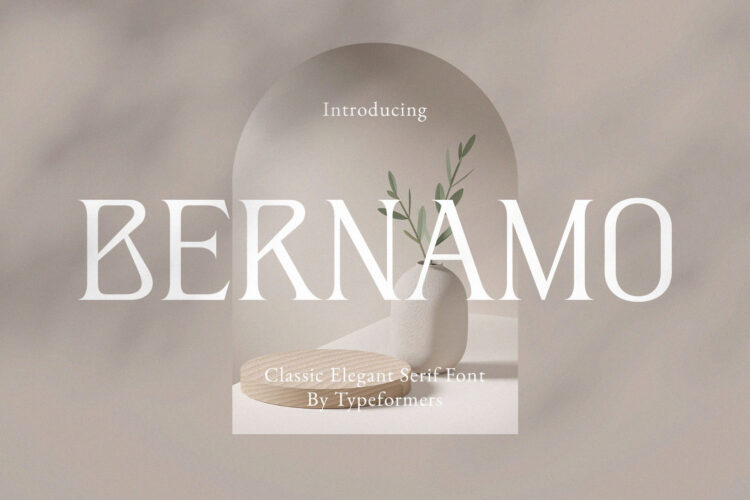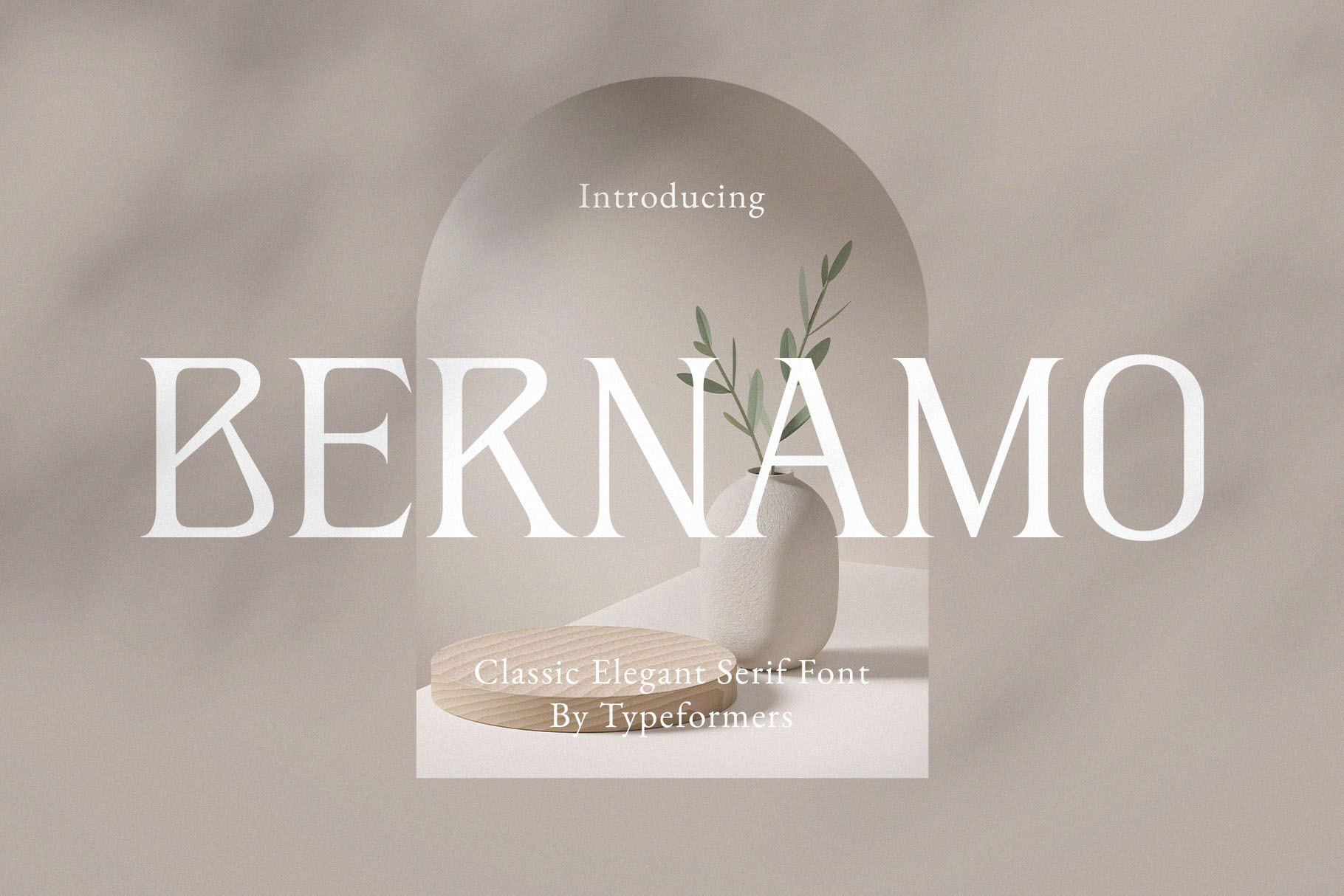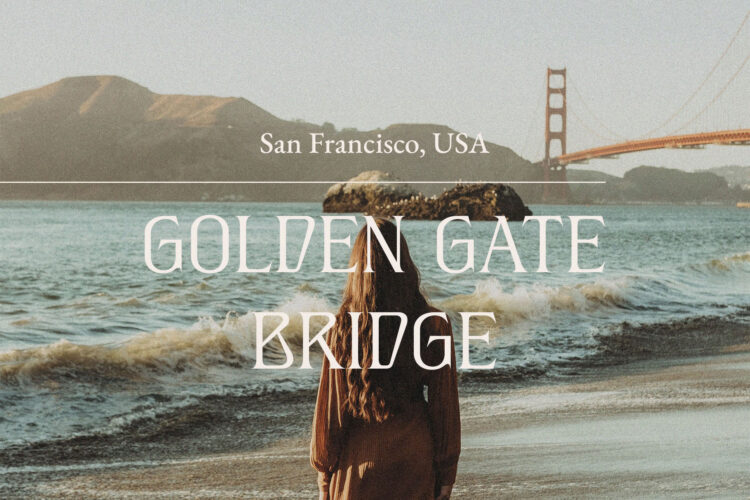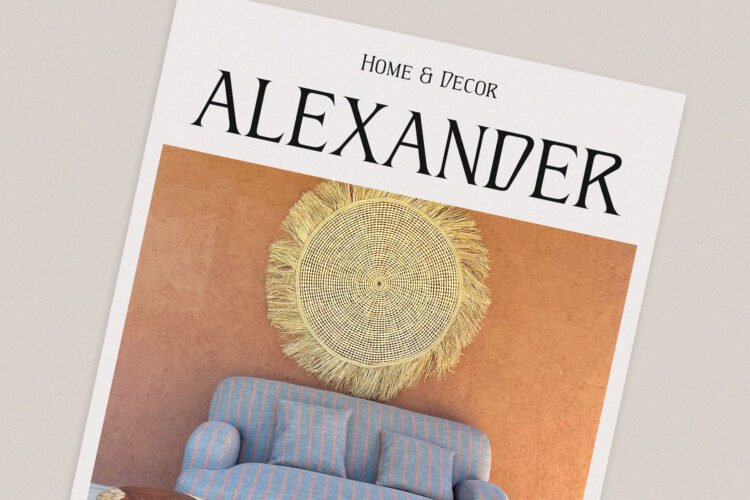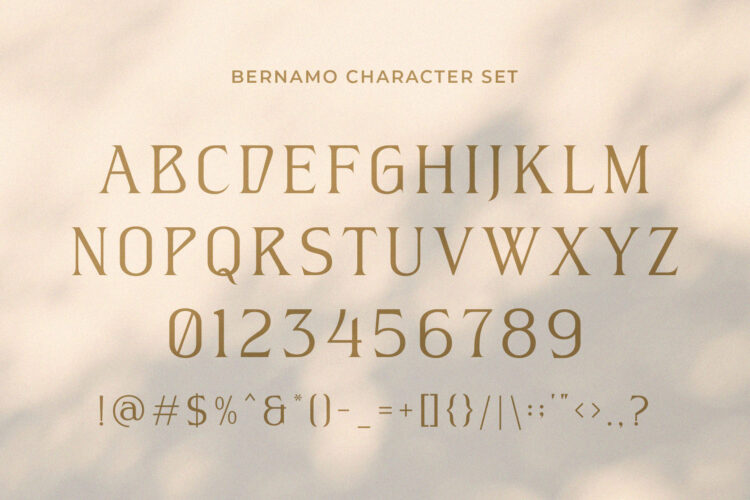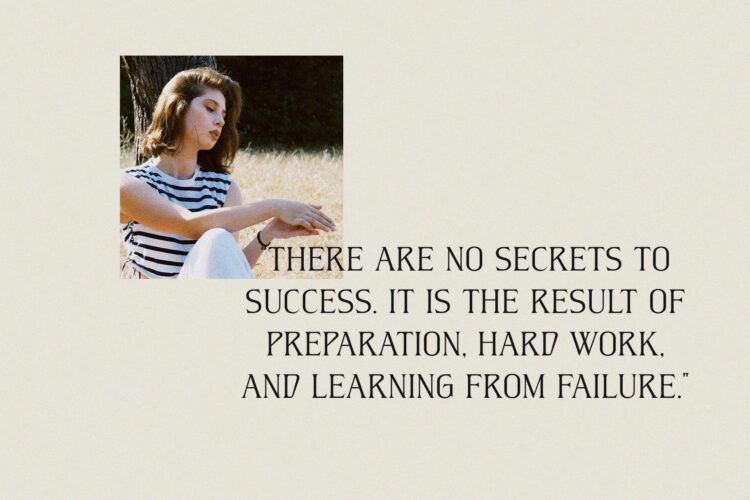
Introducing Bernamo – Classic Modern Serif.
Bernamo is a modern and simple font, best used as a display for headings, logos, branding, magazines, product packaging and invitations.